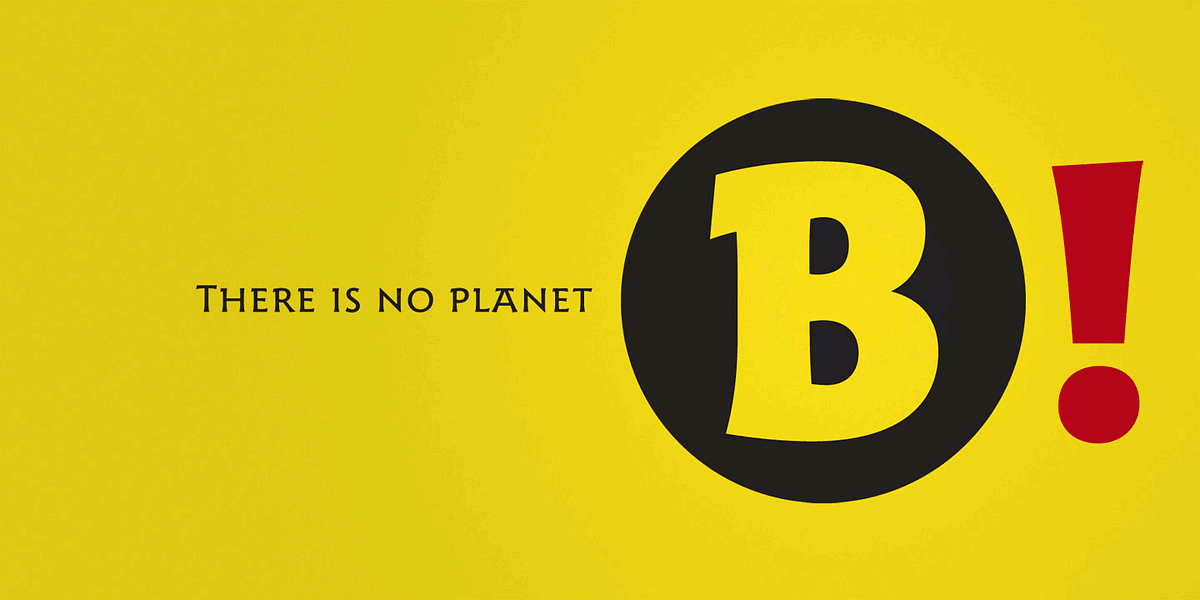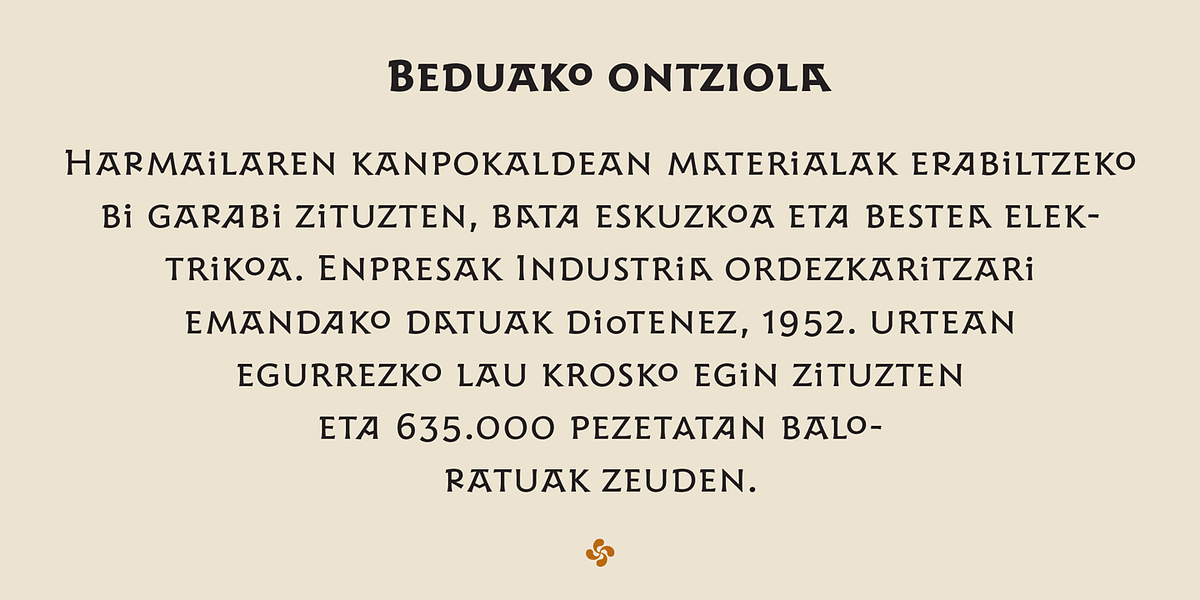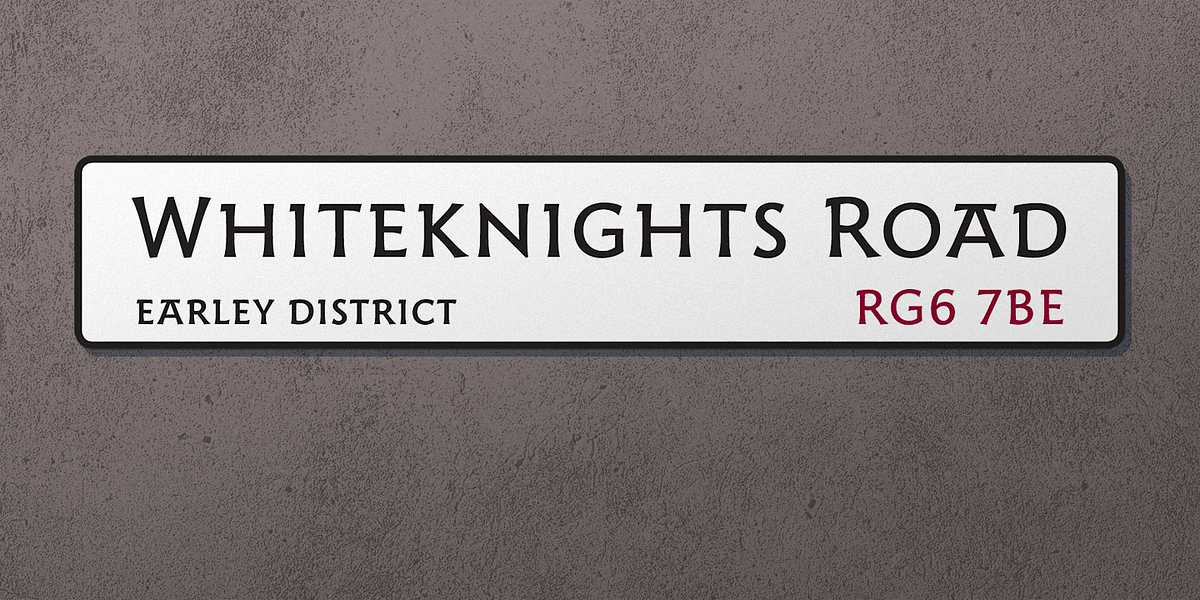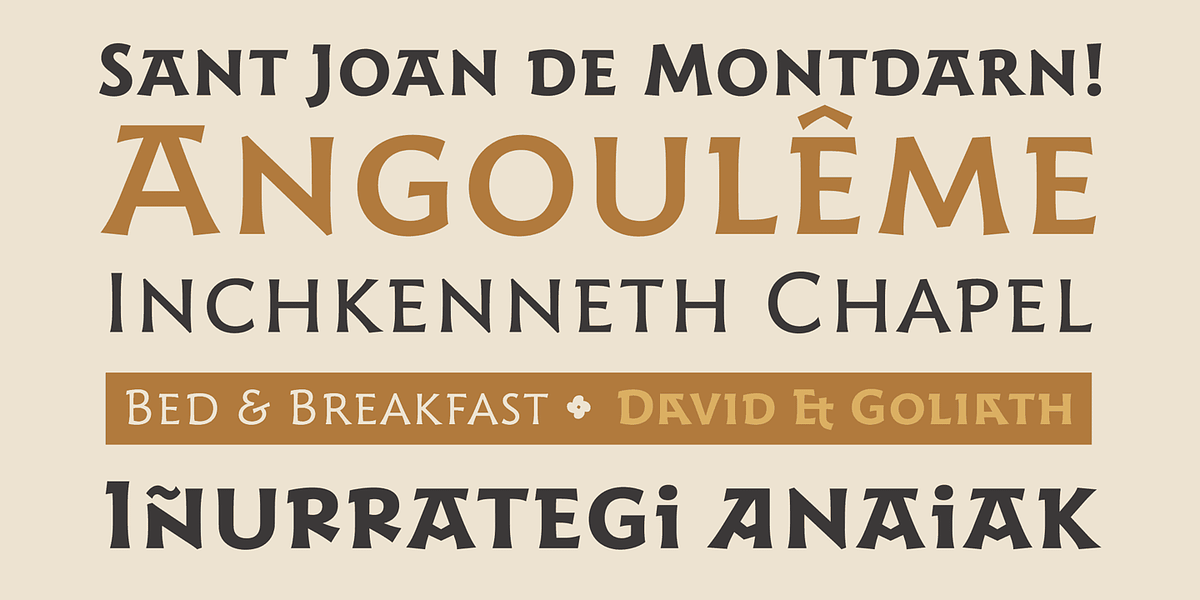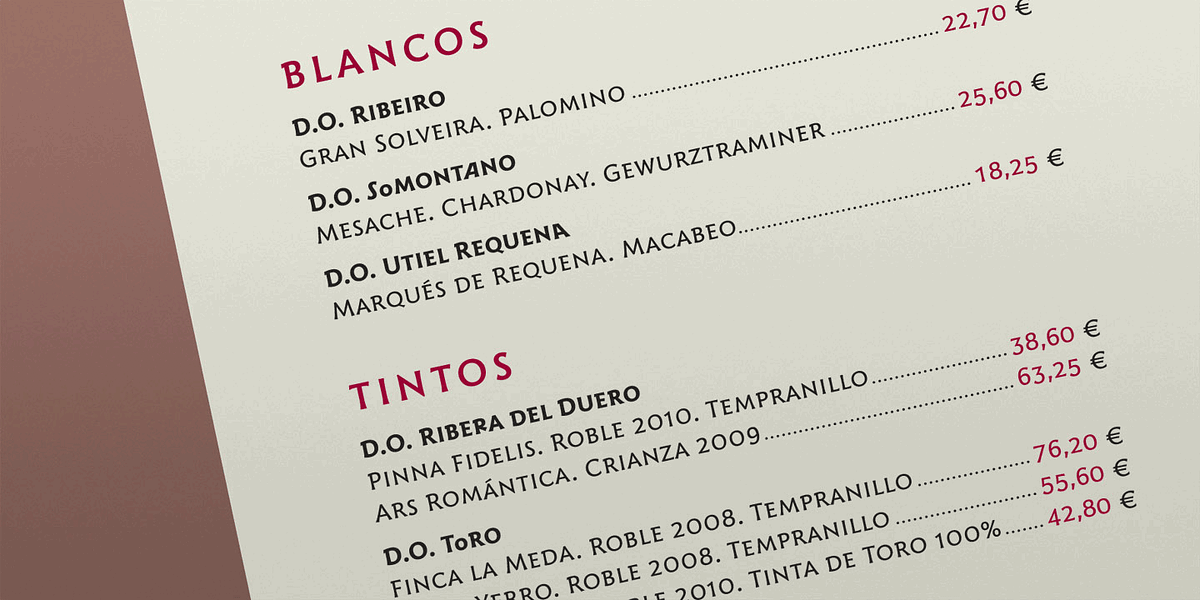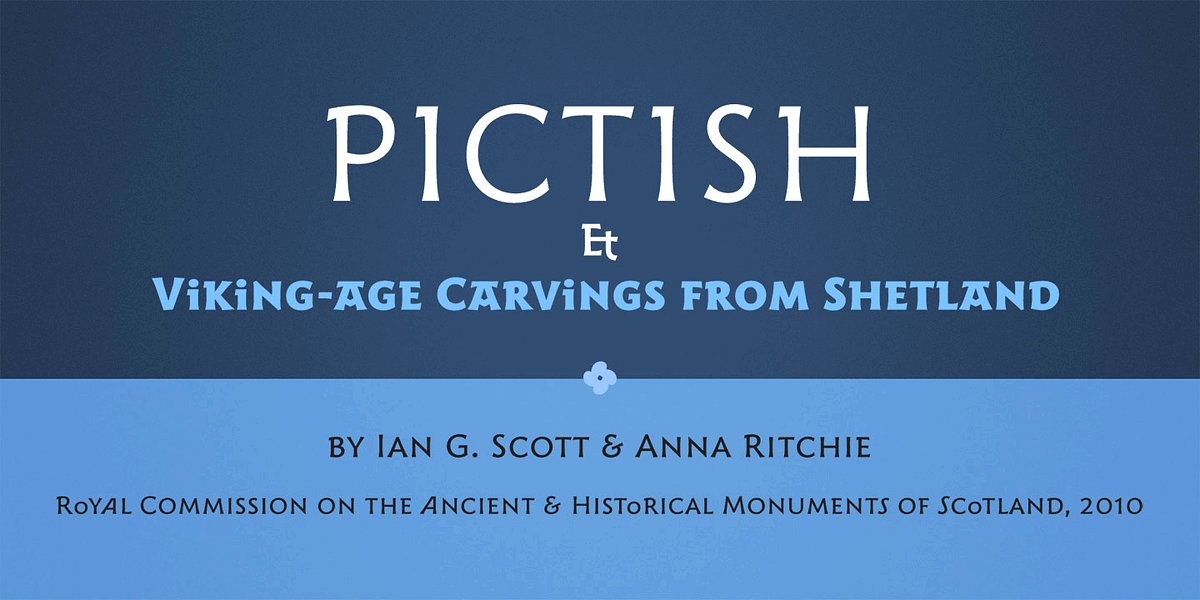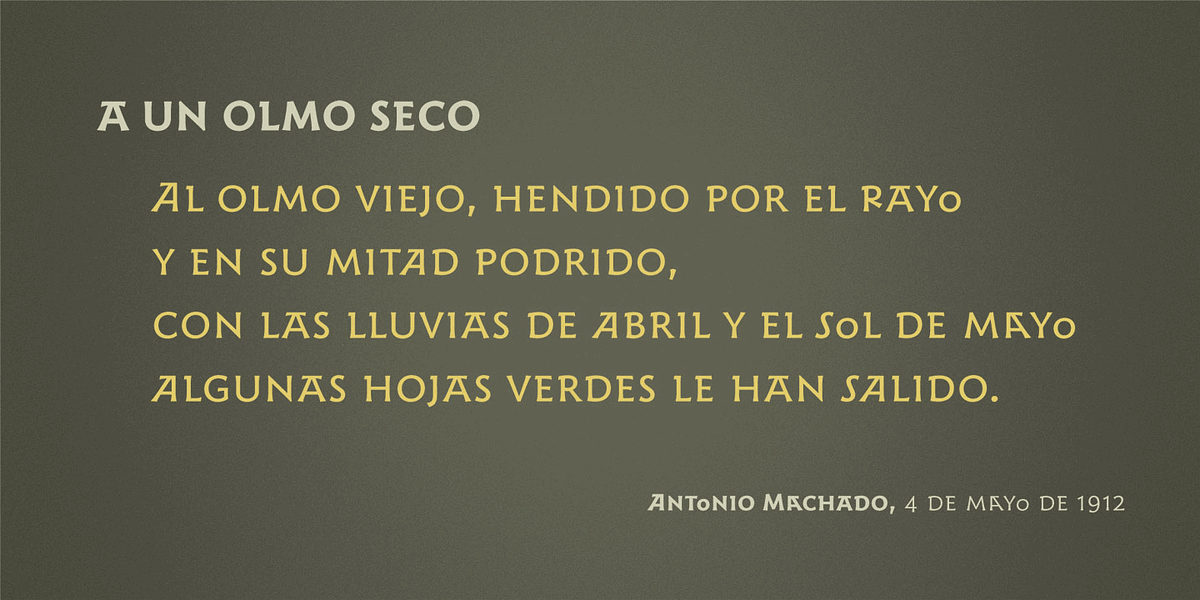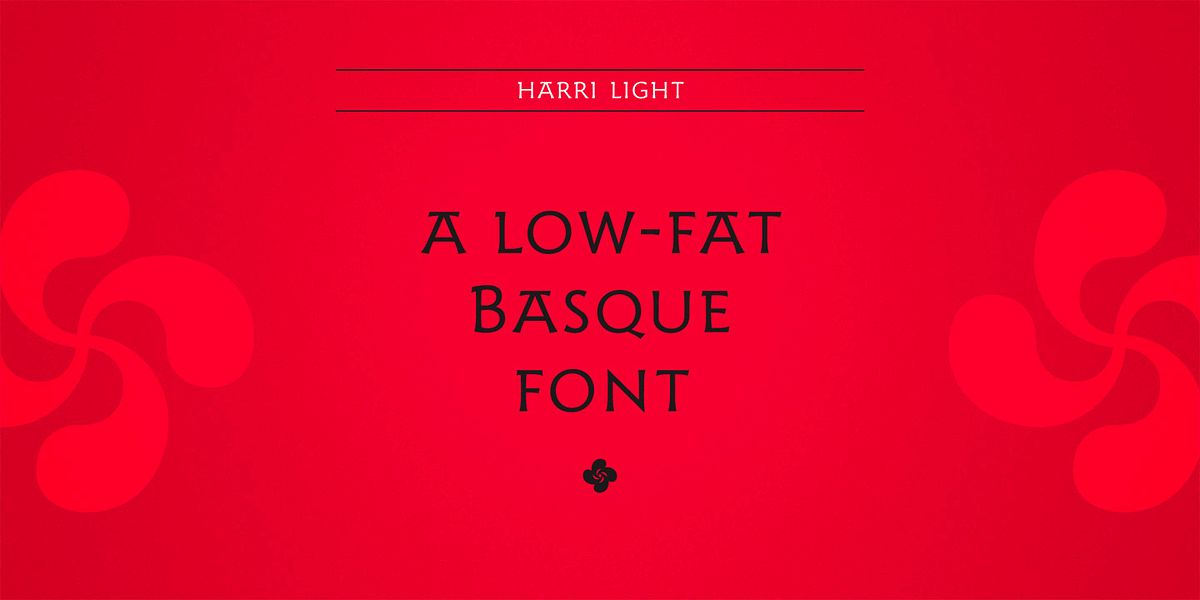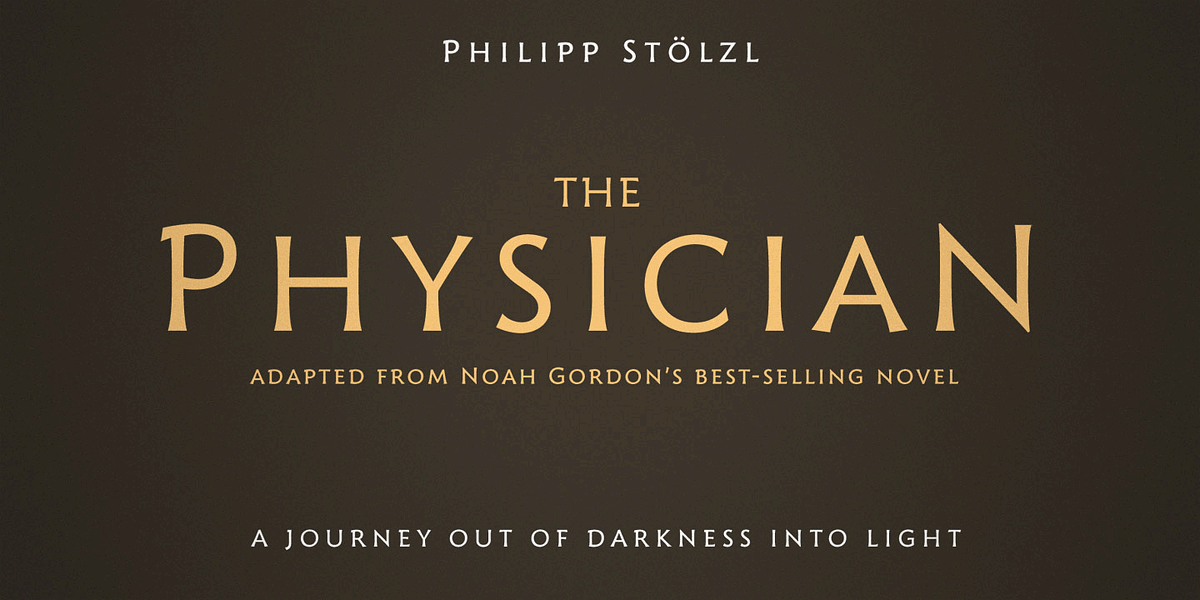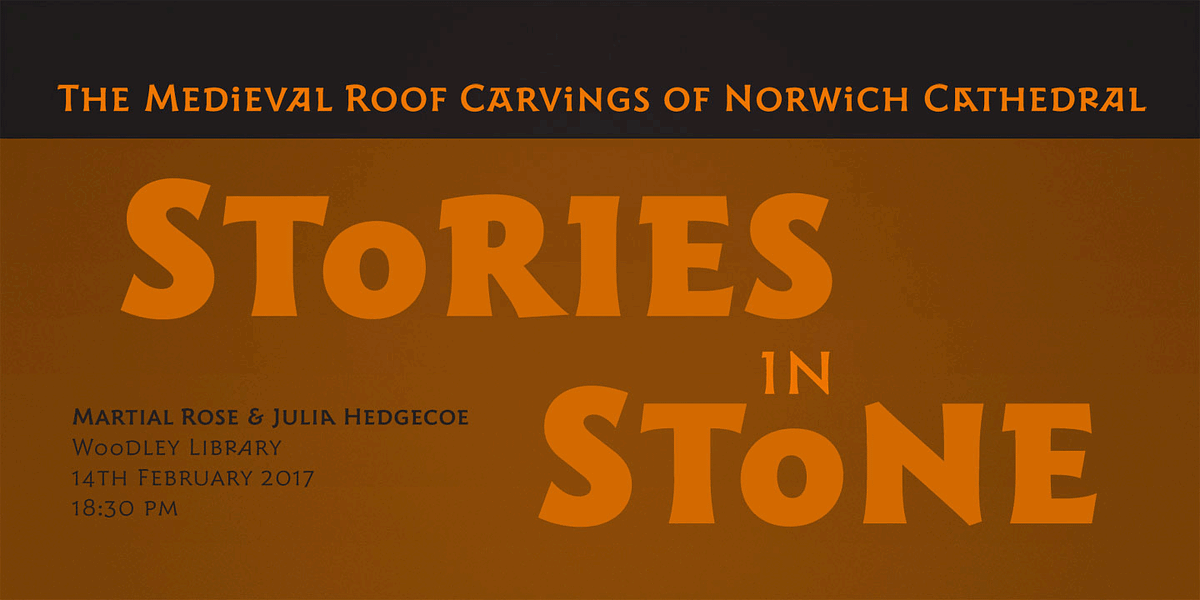
Harri Display
Harri is a display font inspired by the distinctive lettering style found on signs and buildings throughout the Basque Country. This style draws from ancient gravestone inscriptions found in the French part of the region, which themselves were interpretations of Romanesque and Roman letterforms. Harri reflects this evolution, offering a range of weights from a clean, formal light to an extremely bold extra bold that echoes the overemphasized shapes commonly seen in Basque signage today.